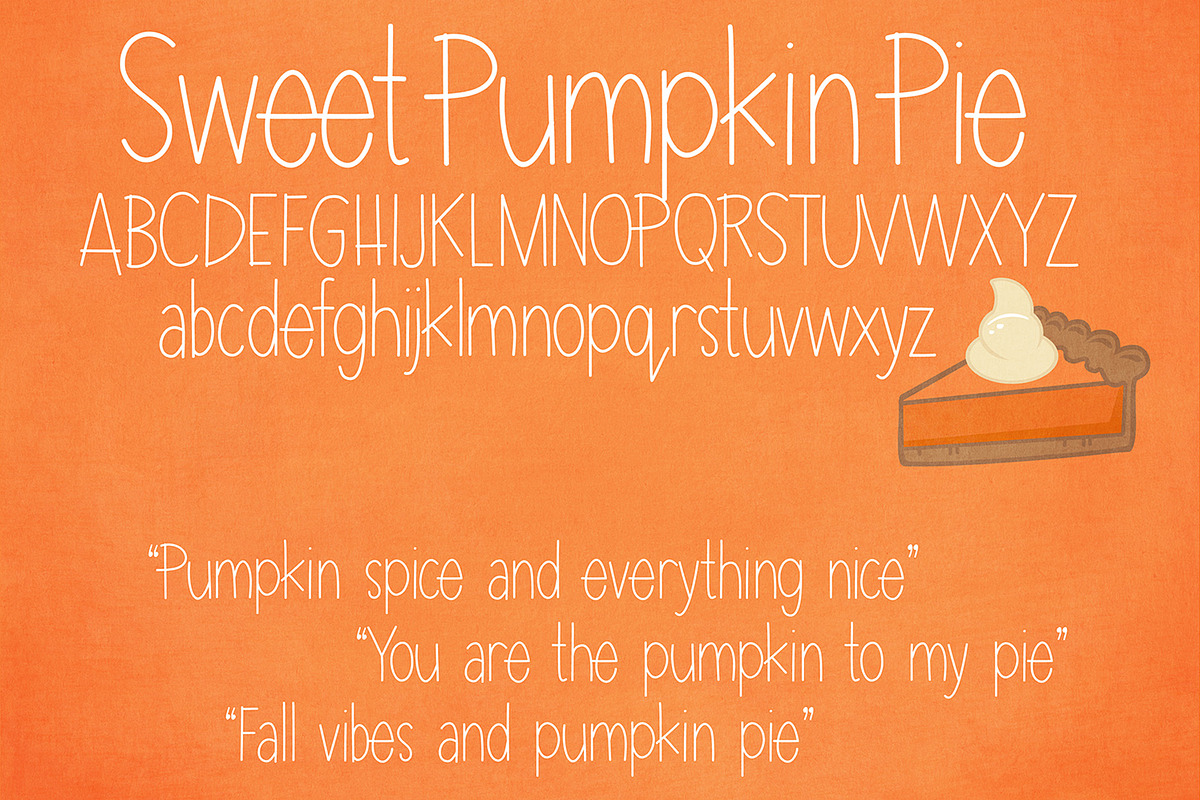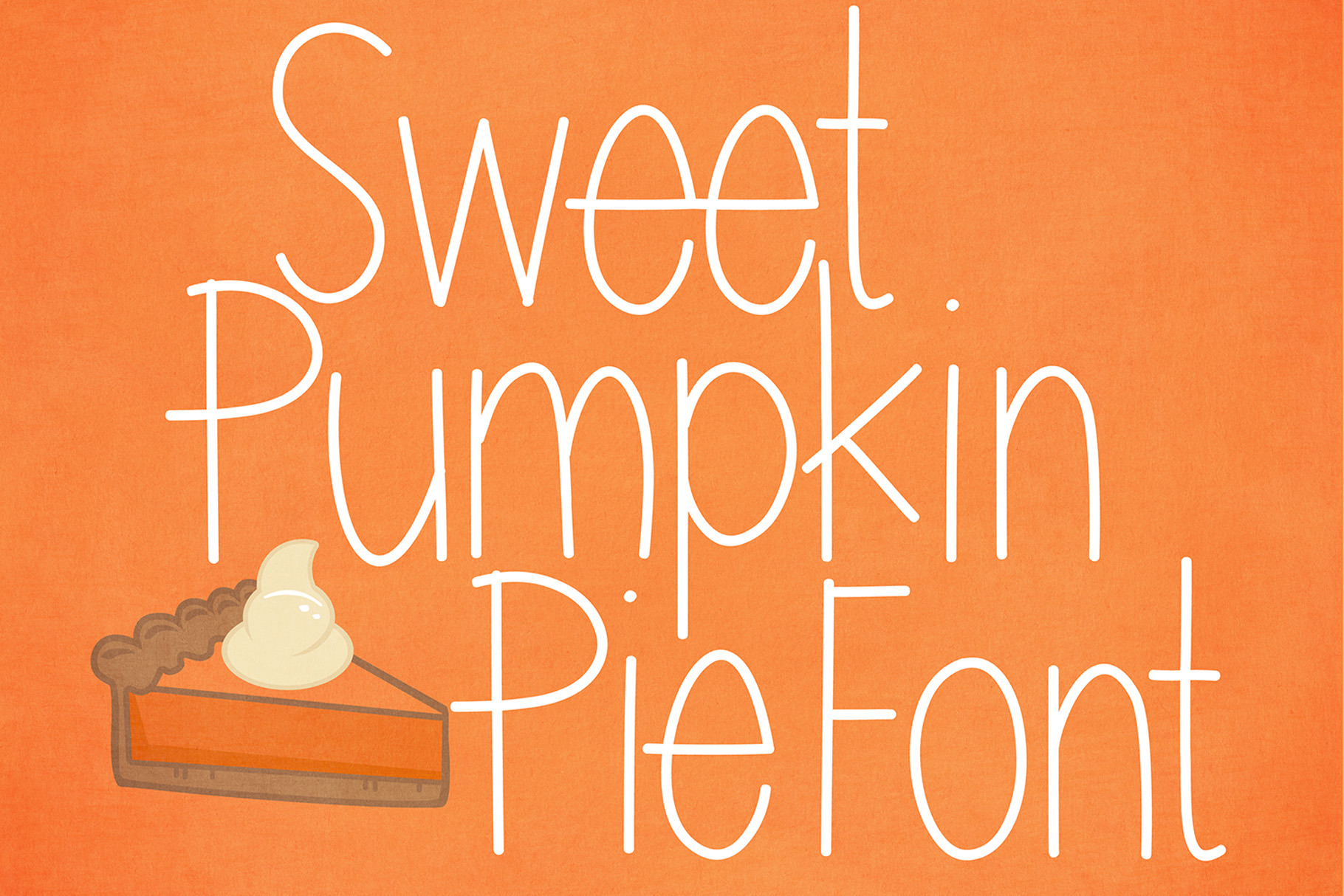
Sweet Pumpkin Pie Font
Introducing a cute handwritten font!
Perfect for greeting cards, branding, stationery, social media, scrapbooking, prints and more!